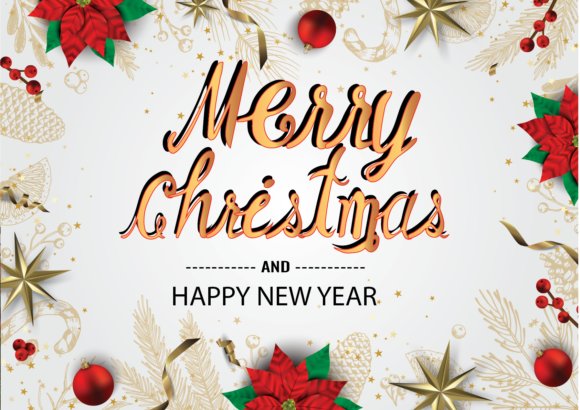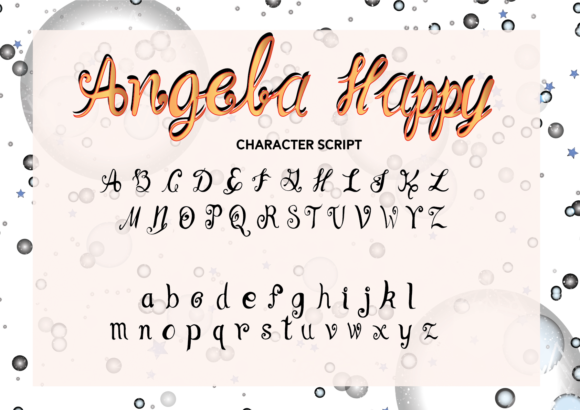
The Quest for the Perfect Font: Discovering Angela Happy
I’ll never forget the time I was working on a project for a client’s birthday party invitation. I had the design all laid out, but something was missing – the perfect font. I scrolled through my font library, but nothing seemed quite right. That’s when I stumbled upon Angela Happy, a cute and casual handwritten font that instantly captured the playful spirit of the party. In this article, I’ll share my experience with Angela Happy, and explore its features, uses, and alternatives.
A Personal Review of Angela Happy
As a designer, I’m always on the lookout for fonts that can bring a touch of personality to my projects. Angela Happy is one such font that has quickly become a favorite in my collection.
What I Love About Angela Happy
- ✨ Friendly and approachable feel: Angela Happy has a warm, inviting quality that makes it perfect for projects that require a personal touch.
- ✅ Highly legible: Despite its casual nature, Angela Happy is surprisingly easy to read, even at smaller font sizes.
- 💕 Versatile: This font is suitable for a wide range of projects, from invitations and branding to blog posts and social media graphics.
While Angela Happy is an excellent font, it’s not without its quirks. Here are a few things to keep in mind:
- 🤔 Limited formal applications: Due to its casual nature, Angela Happy may not be the best choice for formal projects or professional documents.
- ⚠️ Some letters may appear too similar: At smaller font sizes, some letters (like “i” and “l”) may be difficult to distinguish.
The Story Behind Angela Happy
While the true story behind Angela Happy remains a mystery, it’s easy to imagine that it was created with the intention of spreading joy and happiness through design. Perhaps the designer, inspired by childhood memories of handwritten letters and birthday cards, set out to create a font that would evoke a sense of warmth and friendliness.
| Font Name | Angela Happy Font |
| Author | Atta Design |
Q: What type of projects is Angela Happy best suited for?
Angela Happy is perfect for creative projects that require a friendly, approachable feel, such as invitations, branding, blog posts, and social media graphics.
Q: Is Angela Happy a difficult font to read?
No, Angela Happy is surprisingly easy to read, even at smaller font sizes, making it suitable for body text and other long-form content.
Q: Can I use Angela Happy with OpenType features?
Yes, Angela Happy supports OpenType features, which allow you to access glyphs, stylistic alternates, and more, adding an extra layer of creativity to your designs.